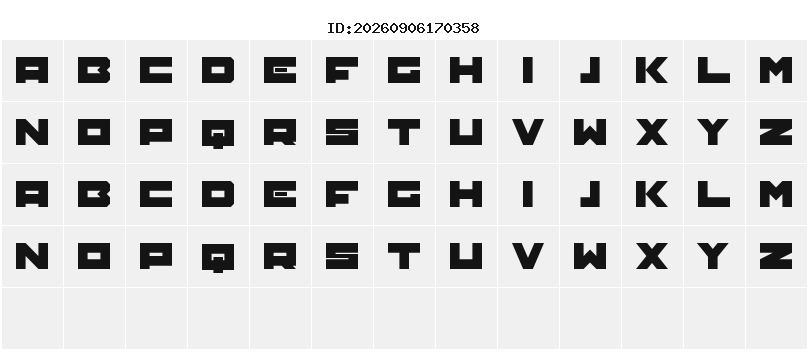
• Font Name: TRTL
• Font ID: TRTL
• Full Font Name: TRTL
• PostScript Name: TRTL
• Character Count: 54
About TRTL.ttf
TRTL.ttf is a modern, elegant sans-serif font designed for ultimate readability and visual harmony. Perfect for branding, headlines, web design, and print materials.